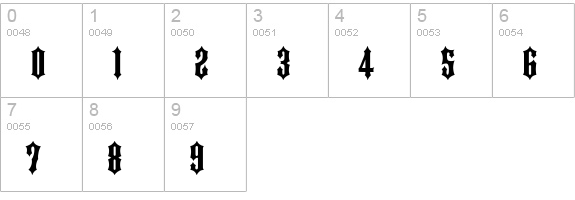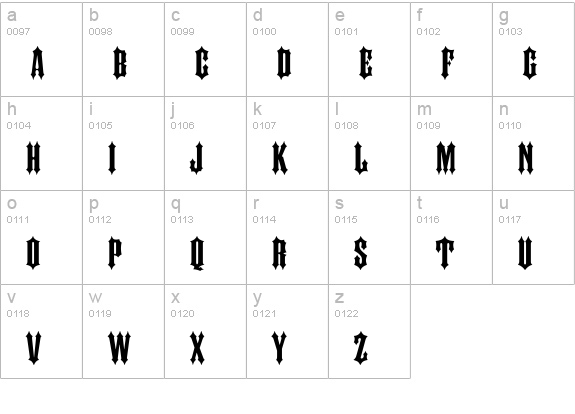
Introducing FTY IRONHORSE NCV, a visually captivating font that embodies the spirit of strength, determination, and resilience. This versatile typeface is perfect for adding a bold and powerful touch to any design project. FTY IRONHORSE NCV boasts an impressive collection of uppercase letters that are expertly crafted with sharp edges and strong strokes, creating a commanding presence on any page. Its unique and intricate design elements give this font a distinctive personality, making it stand out among the crowd. One of the most appealing aspects of FTY IRONHORSE NCV is that it is freely available to download at FontsMarket.com. This means that designers, creatives, and enthusiasts alike can easily access and utilize this font without any cost. Whether you're working on a personal project or a professional endeavor, FTY IRONHORSE NCV allows you to express your creativity without any financial barriers. With its bold and commanding appearance, FTY IRONHORSE NCV is a perfect choice for a wide range of design applications. Whether you're creating striking headlines, eye-catching logos, or captivating posters, this font will leave a lasting impression on your audience. So, why wait? Take advantage of the opportunity to freely download FTY IRONHORSE NCV at FontsMarket.com and unlock the potential to create visually stunning designs that exude power and strength. Embrace the boldness and uniqueness of FTY IRONHORSE NCV and let your creativity shine.